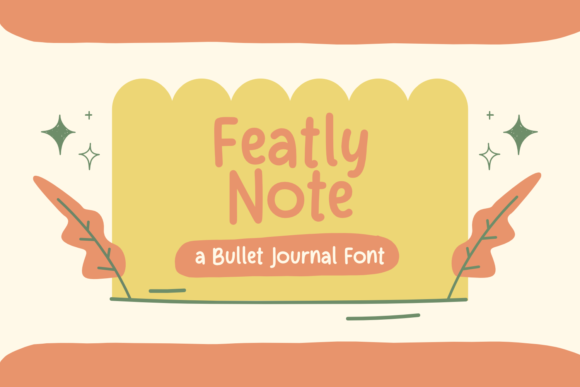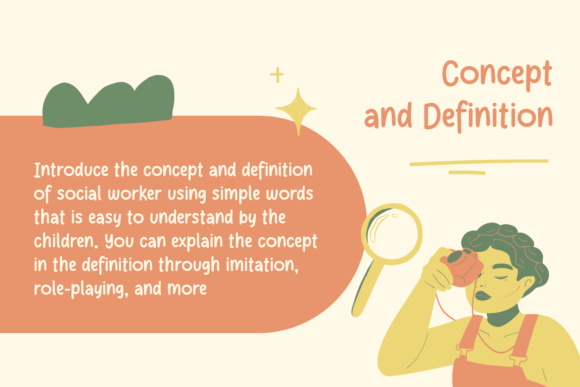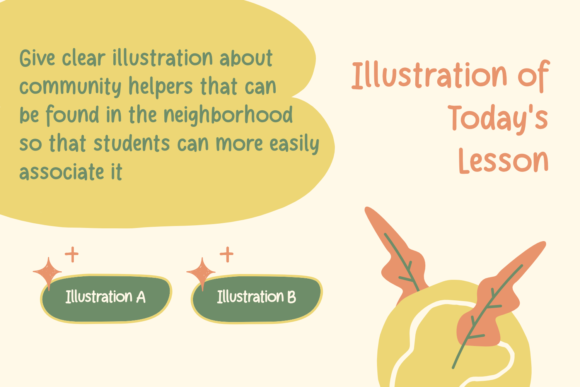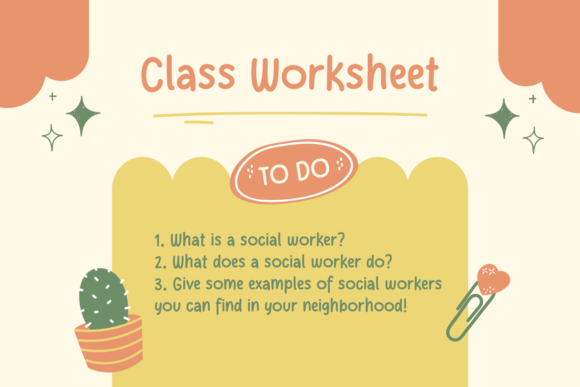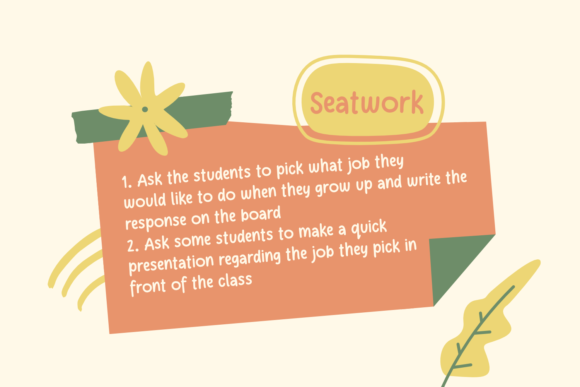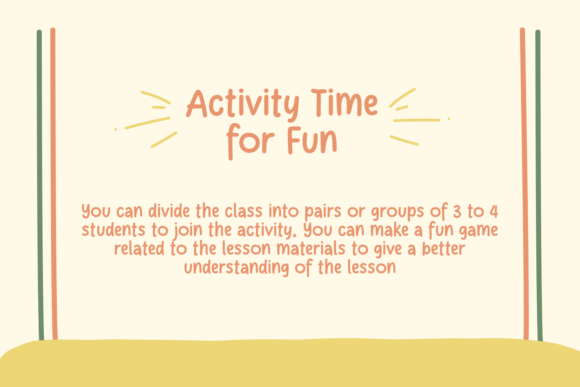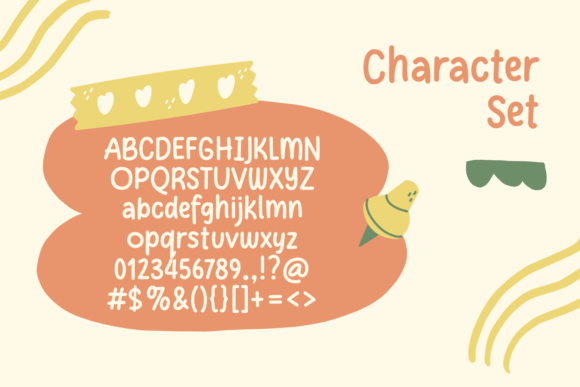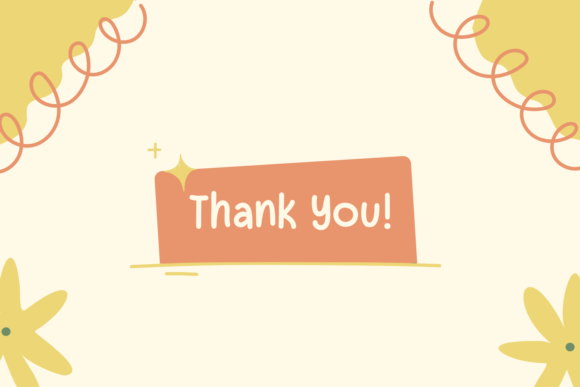
Featly Note Font
Featly Note is a bullet journal, block, natural handwritten font.
This font is perfect for school project, SVG design, stickers, home decoration, quotes, headings, blogs, logos, invitations and more!